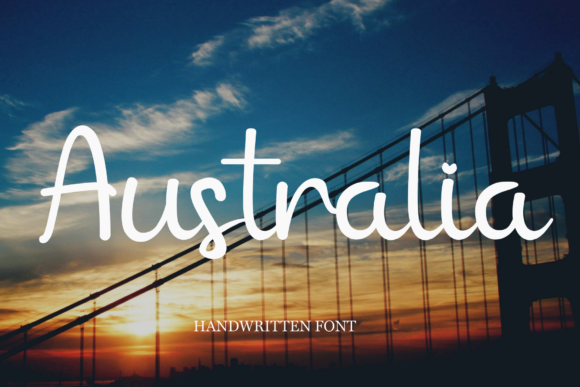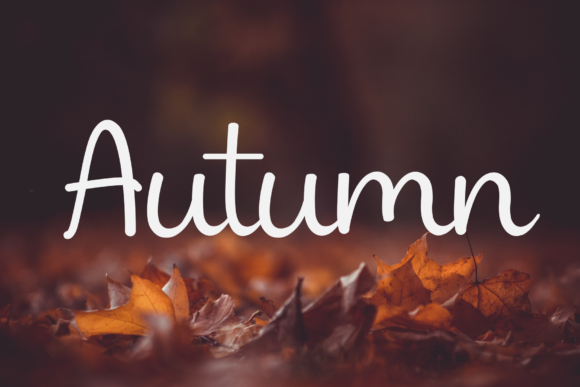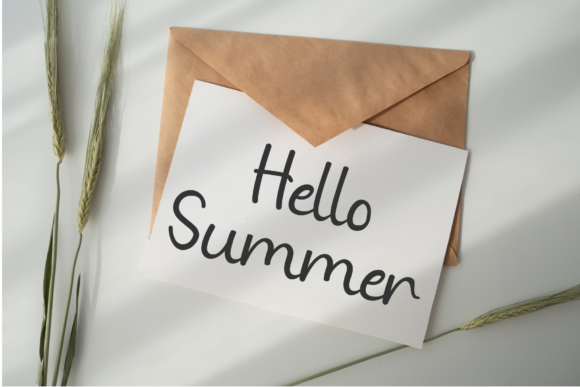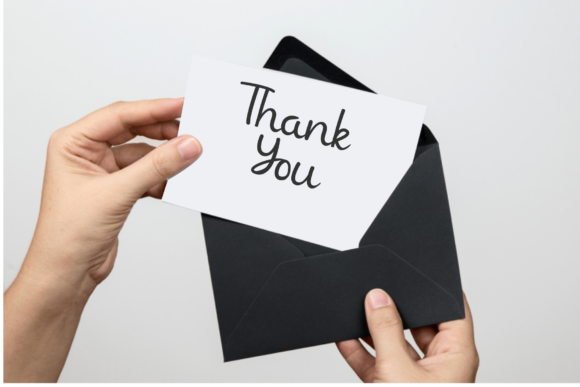
Australia Font: The Sweet and Friendly Handwritten Font for Your Design Needs
Are you looking for a font that can add a personal touch to your designs? Look no further than the Australia Font! This sweet and friendly handwritten font is perfect for a wide range of design projects, from crafting and scrapbooking to branding and advertising. With its natural and unique style, Australia Font is sure to make your designs stand out from the crowd.
The Characteristics of Australia Font
Australia Font is a handwritten font that boasts a natural and effortless look. Its unique style is reminiscent of handwritten notes and letters, making it perfect for designs that require a personal touch. The font features:
- Unique and Quirky Style: Australia Font has a one-of-a-kind style that is sure to add character to your designs.
- Natural and Effortless Look: The font’s natural and effortless look makes it perfect for designs that require a personal and human touch.
- Highly Versatile: Australia Font can be used for a wide range of design projects, from crafting and scrapbooking to branding and advertising.
The Benefits of Using Australia Font
There are many benefits to using Australia Font in your designs. Some of the most significant advantages include:
- Easy to Read: Australia Font is highly legible, making it perfect for designs that require a clear and easy-to-read font.
- Highly Versatile: The font can be used for a wide range of design projects, from formal and informal designs.
- Adds a Personal Touch: Australia Font’s unique and quirky style adds a personal touch to your designs, making them stand out from the crowd.
How to Use Australia Font in Your Designs
Australia Font is incredibly easy to use and can be incorporated into a wide range of design projects. Here are a few ideas to get you started:
- Crafting and Scrapbooking: Use Australia Font to add a personal touch to your crafting and scrapbooking projects.
- Branding and Advertising: Use the font to create unique and eye-catching branding and advertising materials.
- Wedding and Party Decor: Use Australia Font to create beautiful and personalized wedding and party decor.
Tips and Tricks for Using Australia Font
Here are a few tips and tricks to keep in mind when using Australia Font in your designs:
- Pair with Other Fonts: Australia Font pairs well with other fonts, so don’t be afraid to get creative and try out different combinations.
- Use for Headings and Body Text: Australia Font is highly legible, making it perfect for use in both headings and body text.
In conclusion, Australia Font is a sweet and friendly handwritten font that is perfect for a wide range of design projects. Its natural and unique style makes it incredibly fitting to a large pool of designs, and the only limit is your imagination! With its highly legible and versatile design, Australia Font is sure to become a staple in your design toolkit.